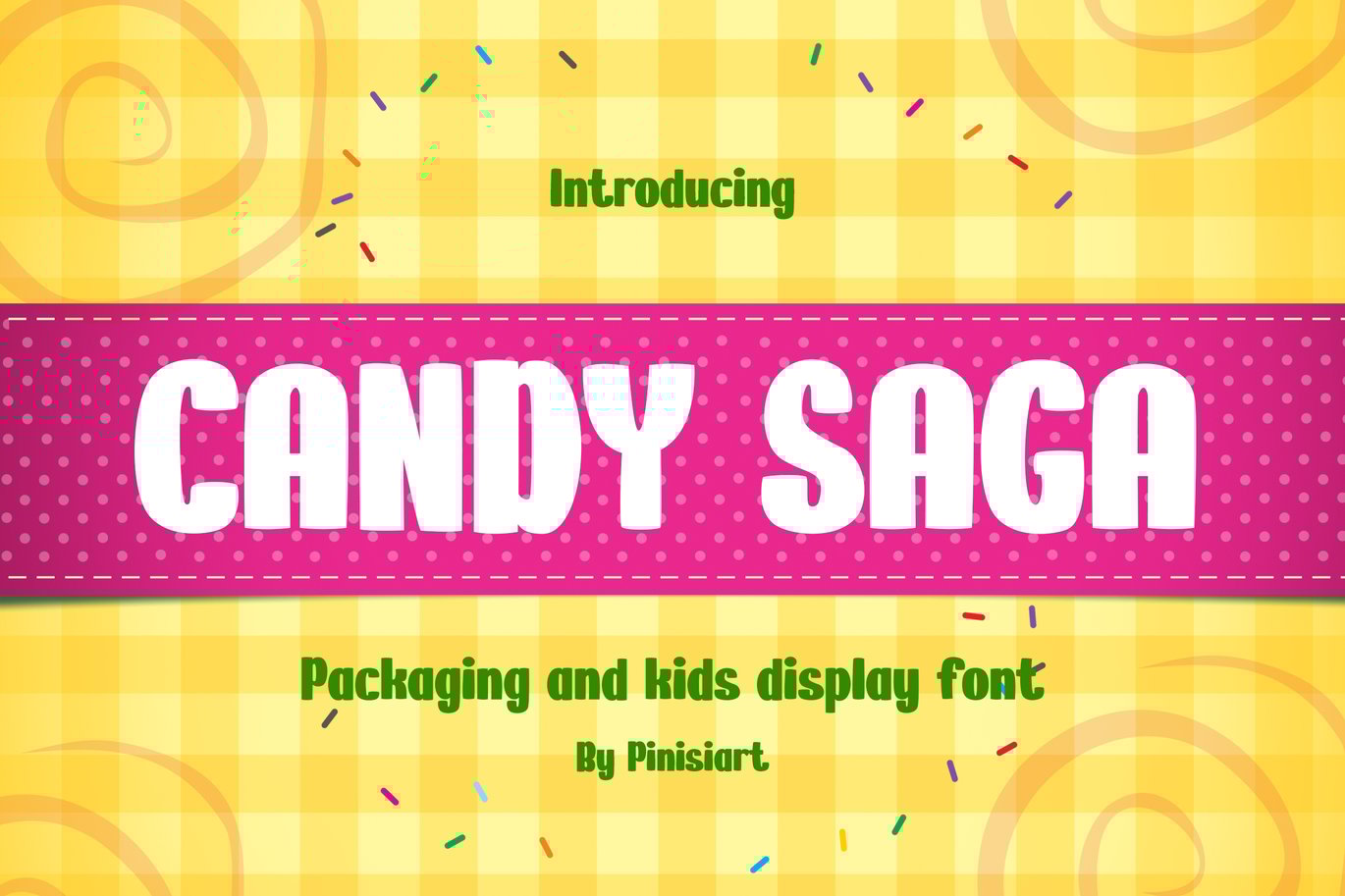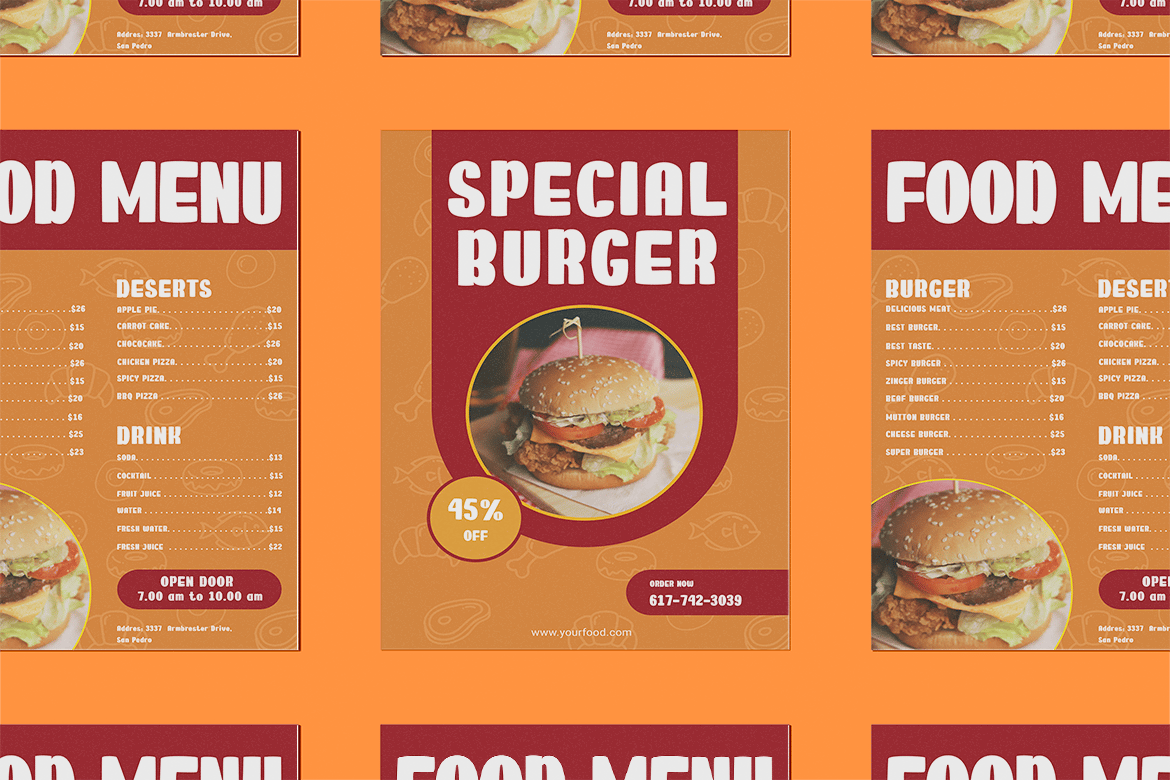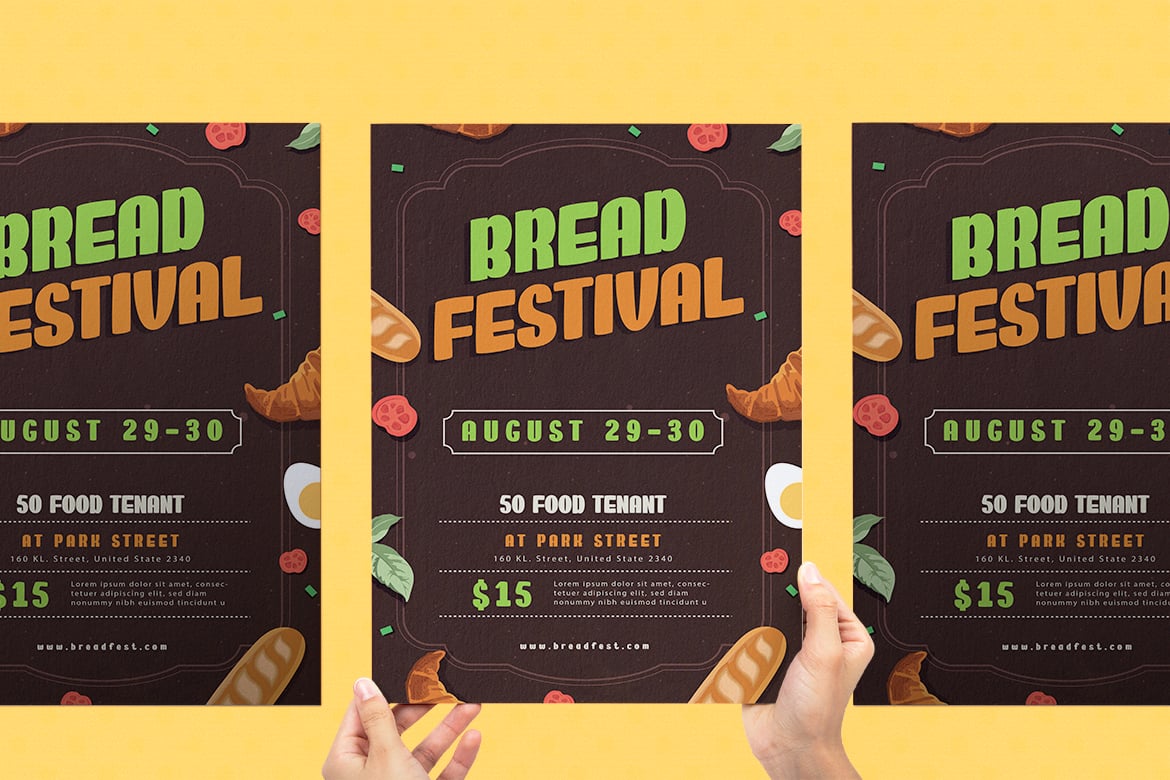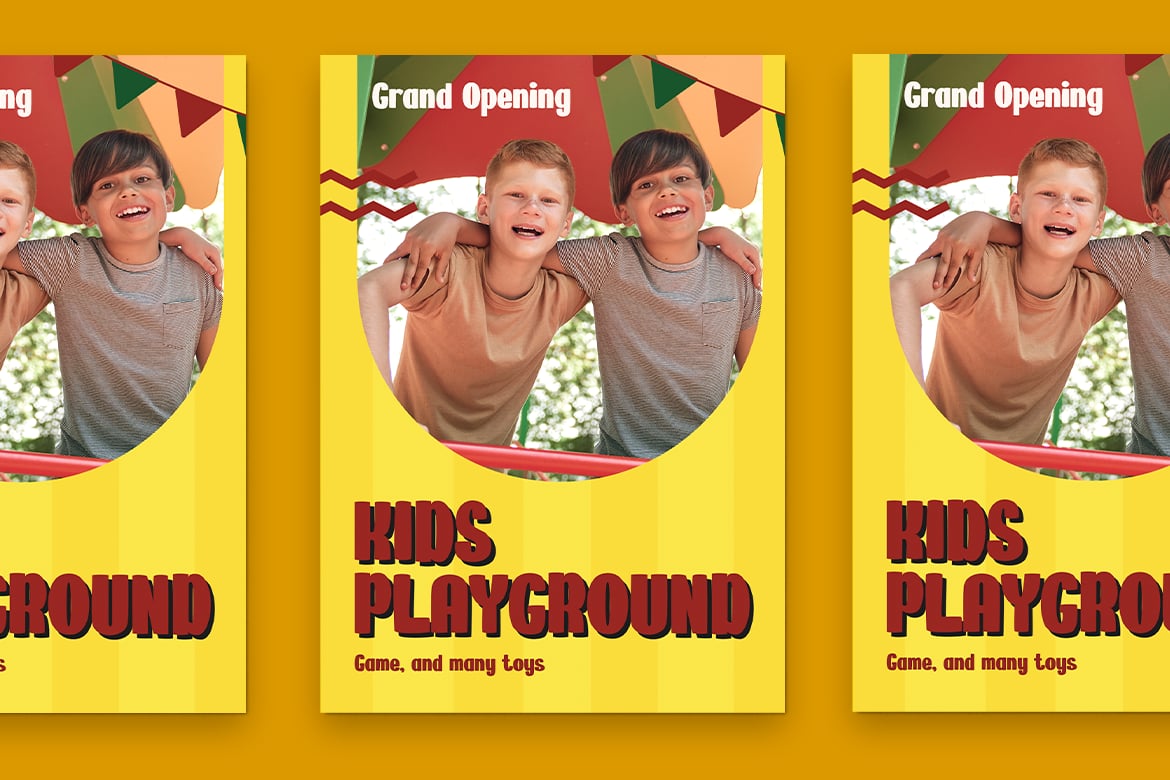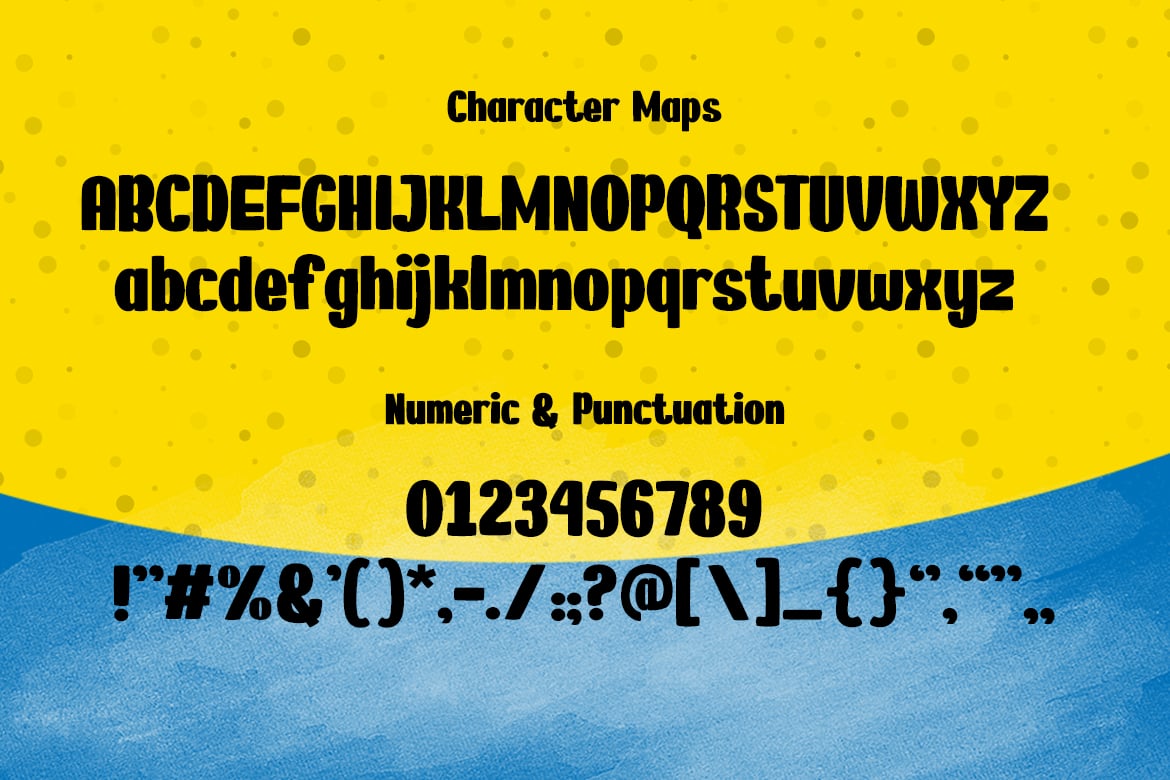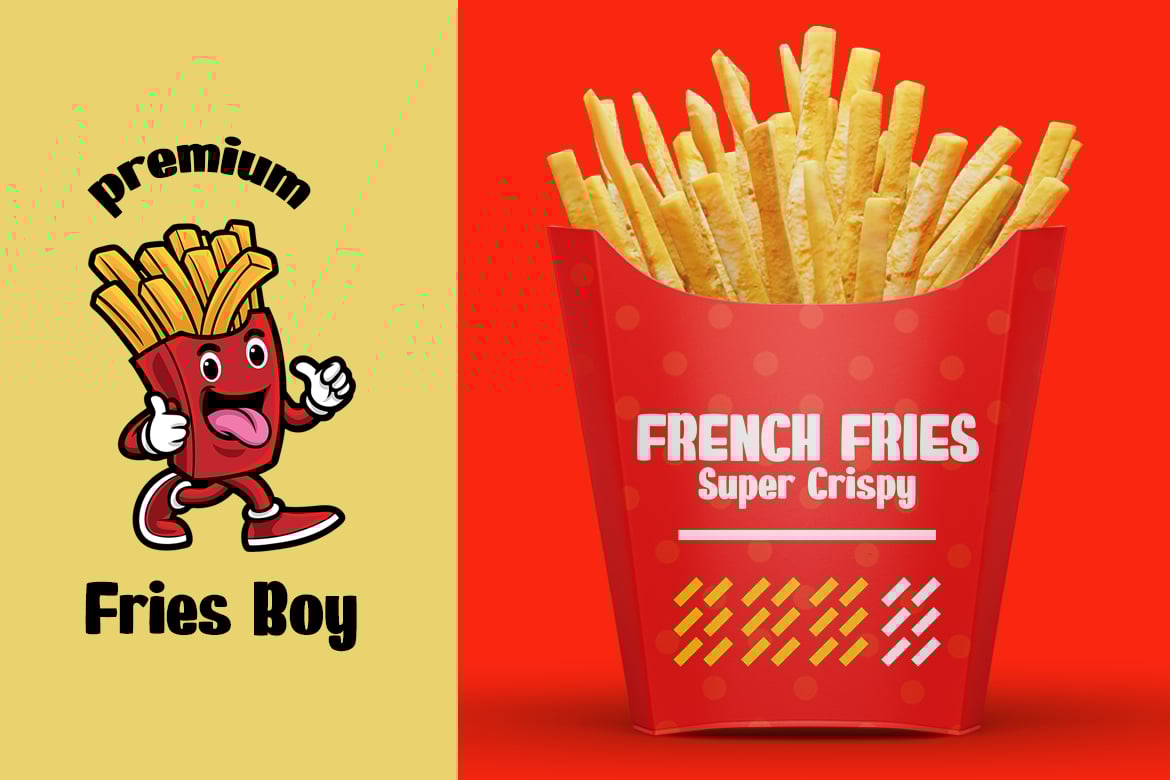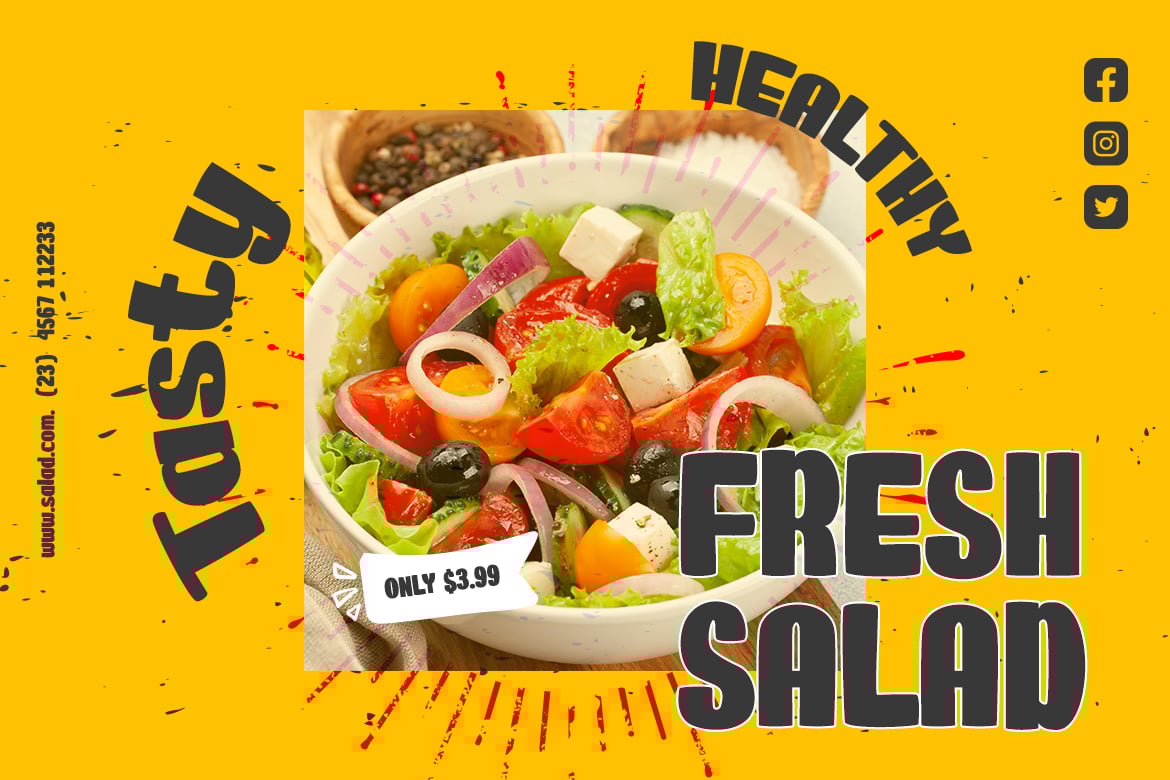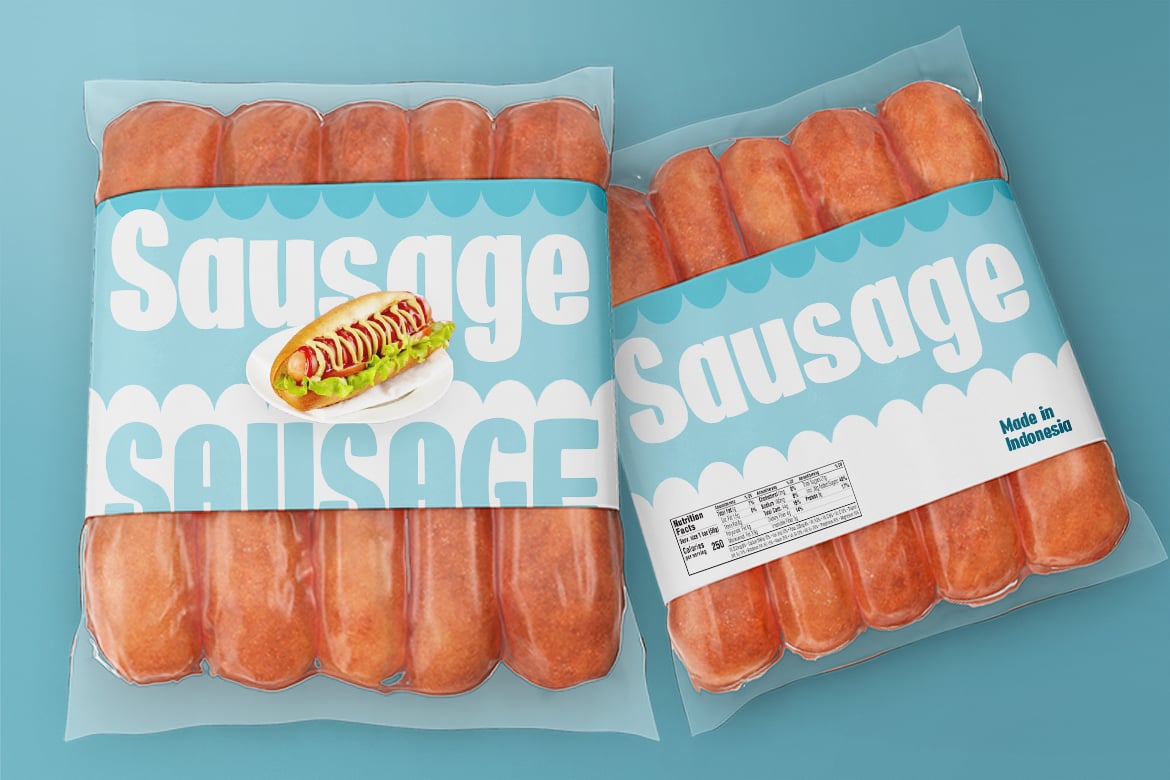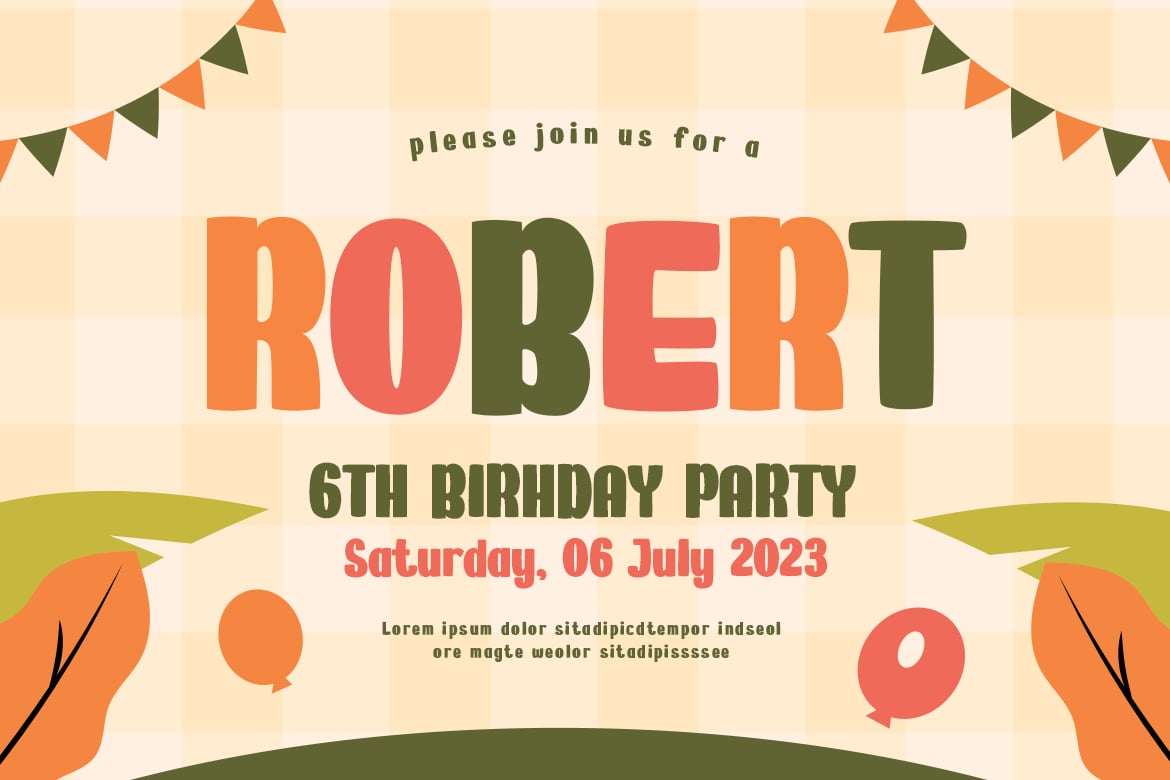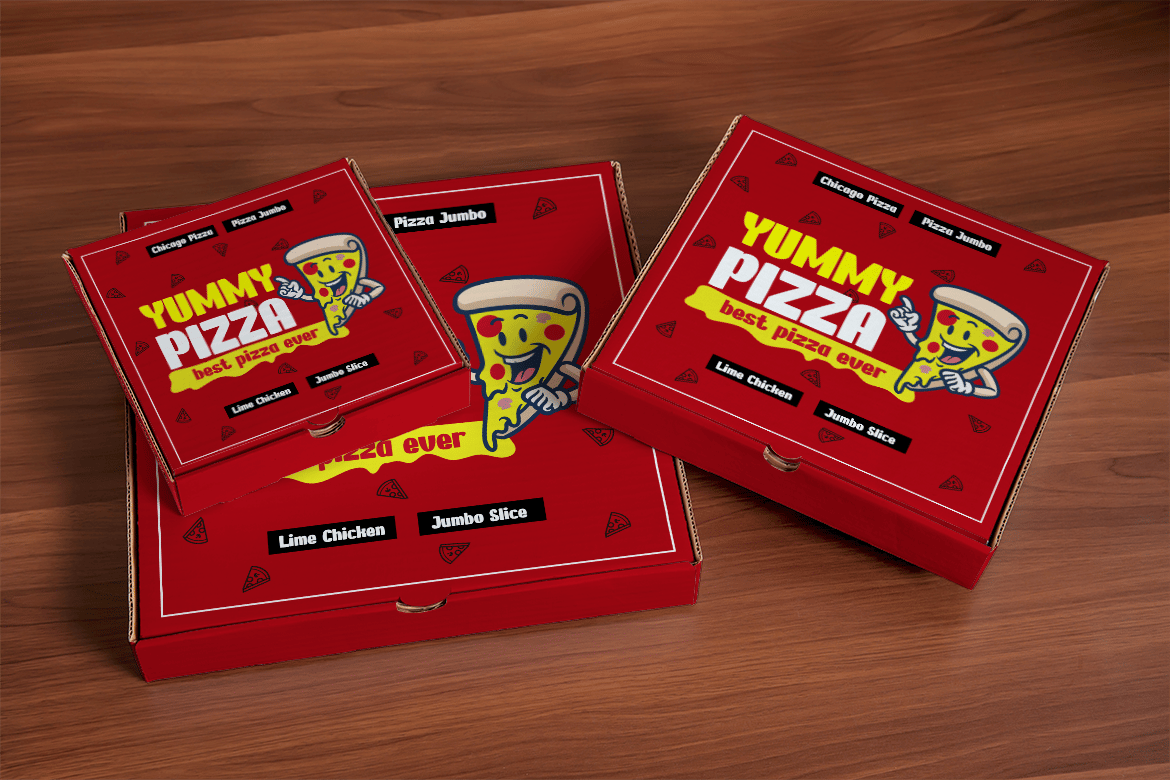
Candy Saga – Packaging and Kids Display Font
Have you ever wonder, what kind of font that will makes your products stand out from other on the supermarket shelves? Well, look no further. Candy Saga is here, with it’s rounded shape and yet still give your product a firm statement of what inside.
Suit perfectly for food packaging font, restaurant poster and menus, online games, stationary, school supplies font, poster, birthday invitation, youtube covers, youtube thumbnails, social media page covers and so on…
- Basic Latin A-Z and a-z, Numbers, Punctuation